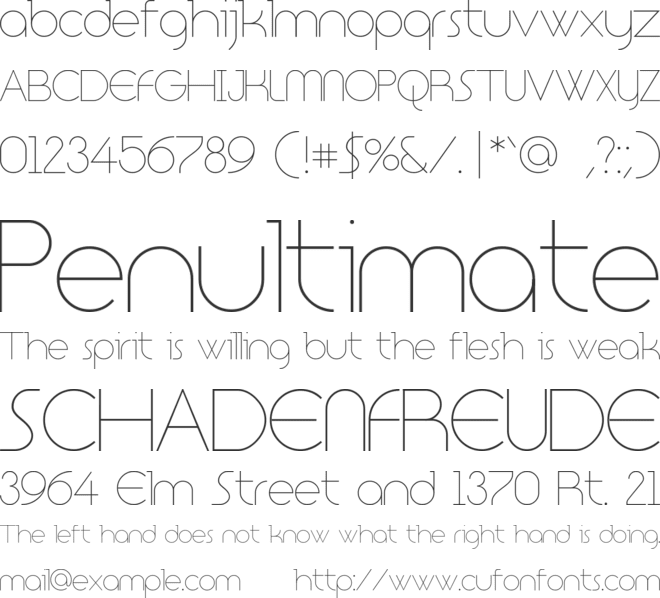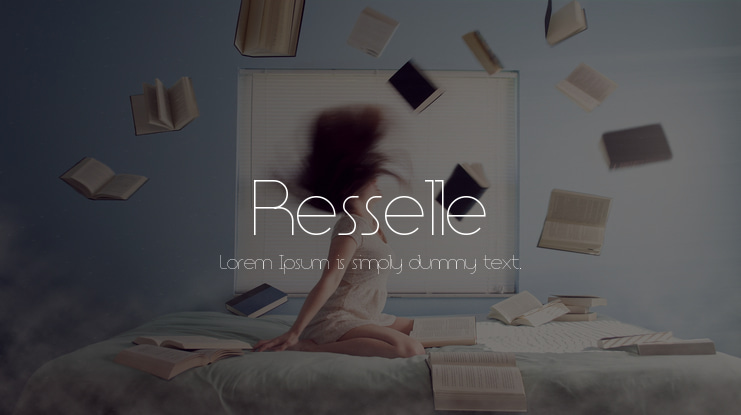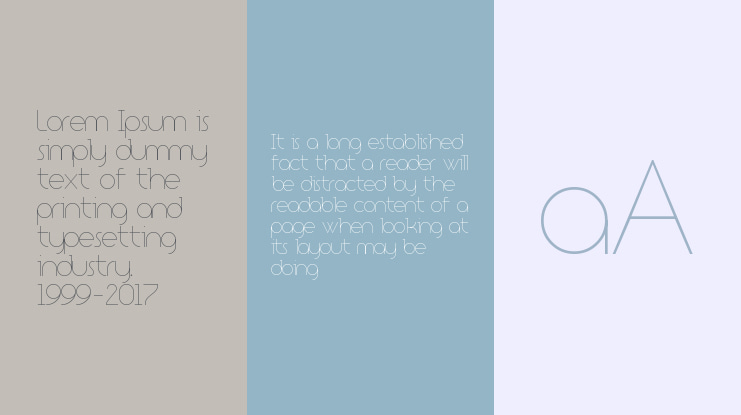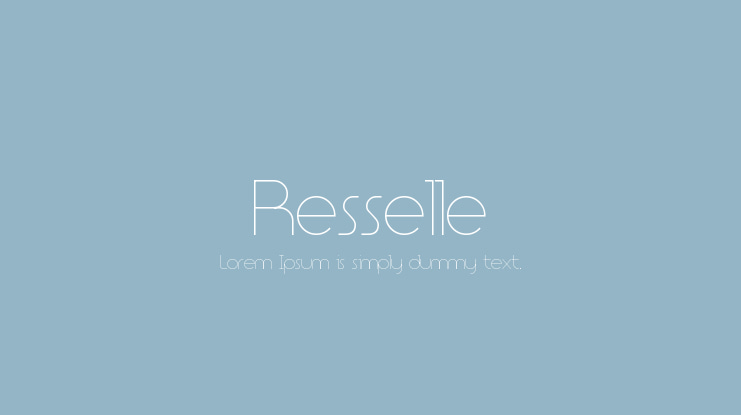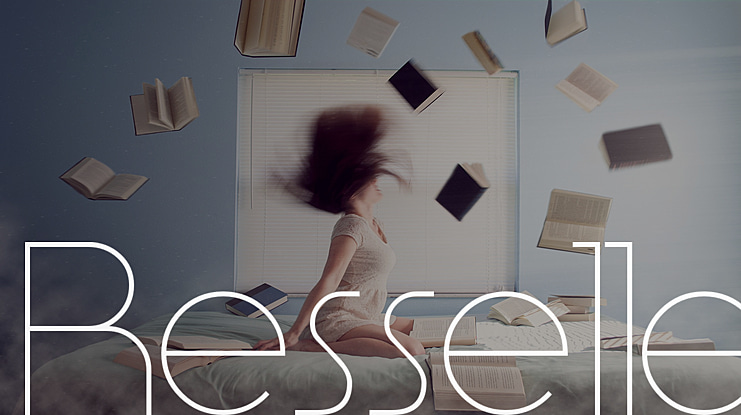
Resselle Font
I created this font to be reminiscent of Dennis Ortiz-Lopez's Proprietary
Elle Girl Rounded Light font. It was made for Ressa who has been an
inspiration and a great friend. I remember how disappointed she was when she
found out she couldn't purchase it.